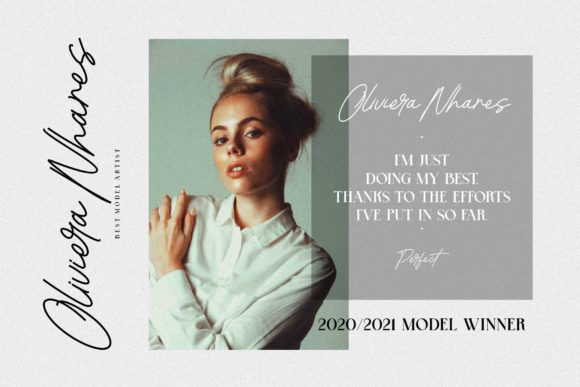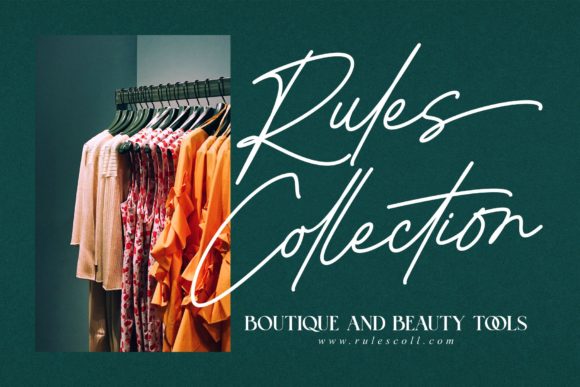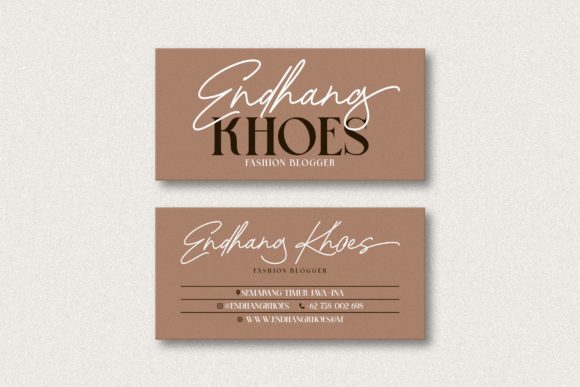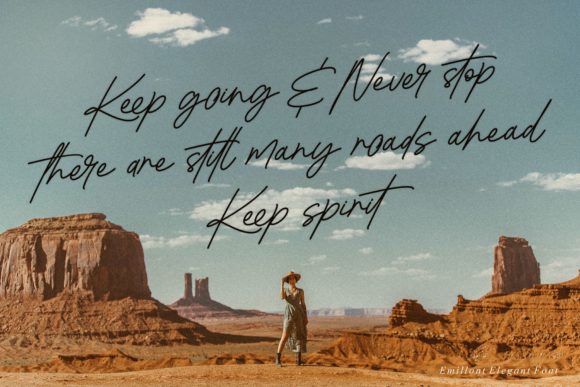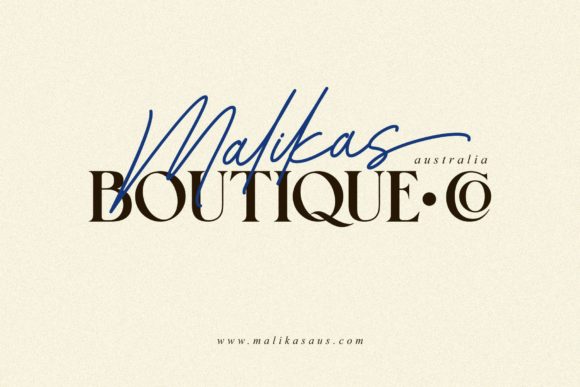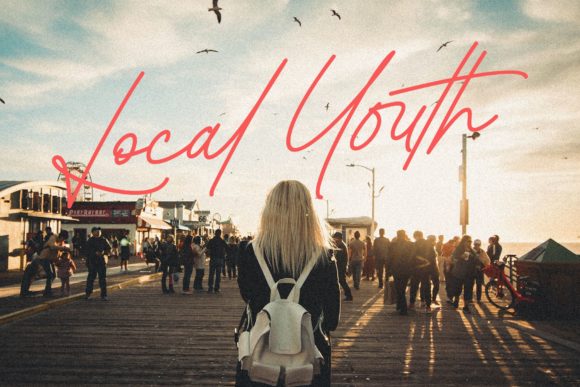
Introduction to Emillont Font
Have you ever stared at a blank page, waiting for the perfect font to bring your creative project to life? It’s a moment we’ve all been in, designers and non-designers alike. But what if I told you there’s a font that can make that moment a little less daunting? Enter the Emillont Font, a beautiful and elegant handwritten font that’s about to become your new best friend.
With its high-quality characters and balanced design, the Emillont Font is a valuable resource for any designer looking to elevate their creative project. Whether you’re working on a branding project, a blog post, or a social media campaign, this font is sure to add a touch of sophistication and class. And the best part? It’s available for free download, making it an accessible design resource for anyone.
Key Features of Emillont Font
- High-quality, professional design perfect for creative projects
- Unique, modern design that sets your creative project apart from the crowd
Honest Review: Emillont Font
As a designer, I’m always on the lookout for high-quality design resources to elevate my creative projects. The Emillont Font caught my eye, and I decided to give it a try. Here’s my honest review.
- ✨ High-quality typography: The Emillont Font has a beautiful, modern aesthetic that’s perfect for a variety of creative projects.
- ⚠️ Limited character set: The font only includes a limited character set, which may not be suitable for projects that require a wide range of characters.
- ⚠️ Not suitable for large text: The font may not be the best choice for large text, as it can become pixelated and lose its clarity.
Overall, I think the Emillont Font is a solid design resource that’s perfect for smaller creative projects. While it may not be suitable for every project, it’s definitely worth considering for your next design endeavor.
The Emillont Font is a high-quality design resource ideal for creative projects that require a unique touch. This font is available for free download and features a transparent background, making it perfect for layered designs.
Emillont Font is perfect for designing invitations, social media graphics, and marketing materials. Its unique style makes it ideal for creative projects that require a high-quality design resource.
To get the most out of Emillont Font, experiment with different font sizes, colors, and combinations. This font is highly versatile and can be used in a variety of design contexts.
The Great Vibes Font is a high-quality, elegant script font perfect for creative projects that require a touch of sophistication. It features a transparent background, making it ideal for designs where a subtle look is desired. When to use: Wedding invitations, luxury branding, and high-end packaging. Comparison to Emillont Font: Great Vibes Font has a more refined and classic look compared to Emillont Font’s modern and playful feel.
Pacifico Font is a beautiful, high-quality script font ideal for designers looking for a creative resource with a touch of warmth. It features a transparent background, making it suitable for designs where a natural look is desired. When to use: Branding, packaging, and website design for eco-friendly or wellness-related businesses. Comparison to Emillont Font: Pacifico Font has a more relaxed and casual feel compared to Emillont Font’s modern and trendy look.
Yes, the Emillont Font is designed to handle large-scale projects. It’s a versatile design resource that can be used in various contexts, from logos and branding to typography and creative graphics. However, please ensure you have the necessary technical requirements to handle the font’s size and complexity.